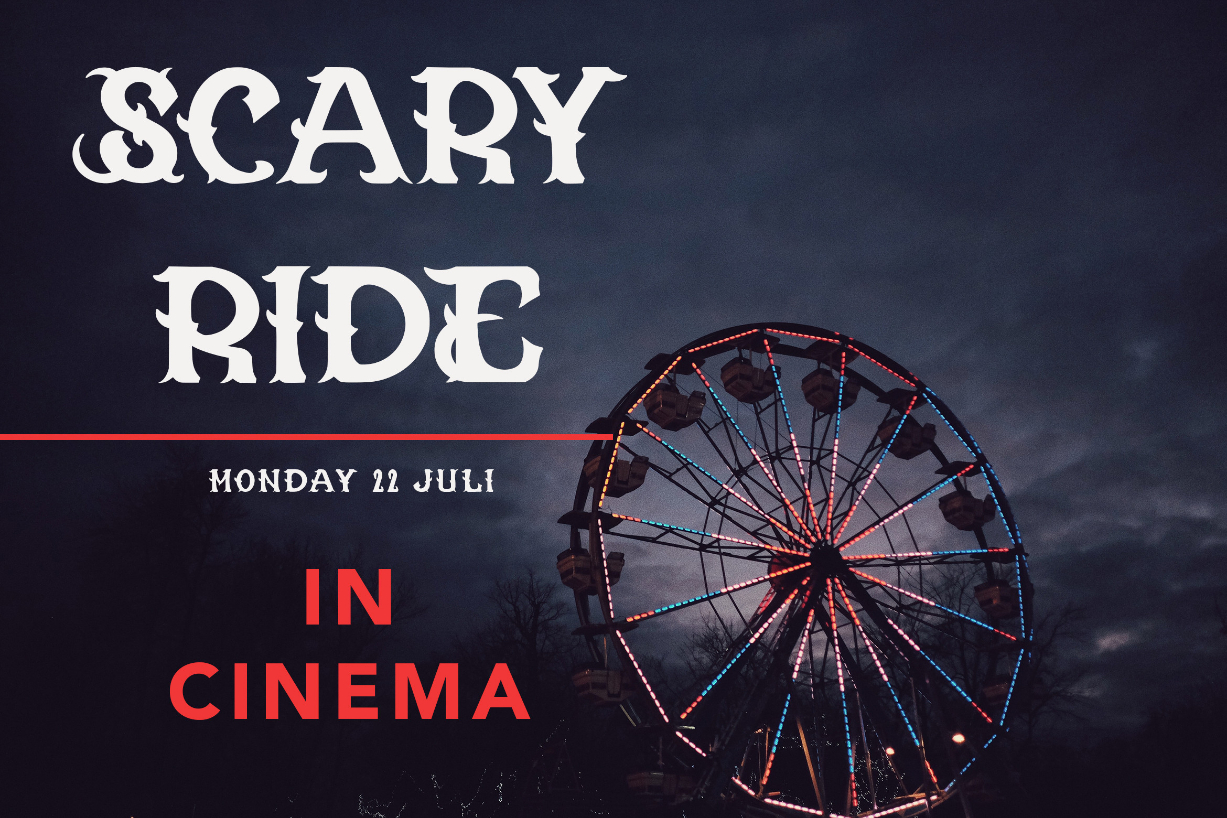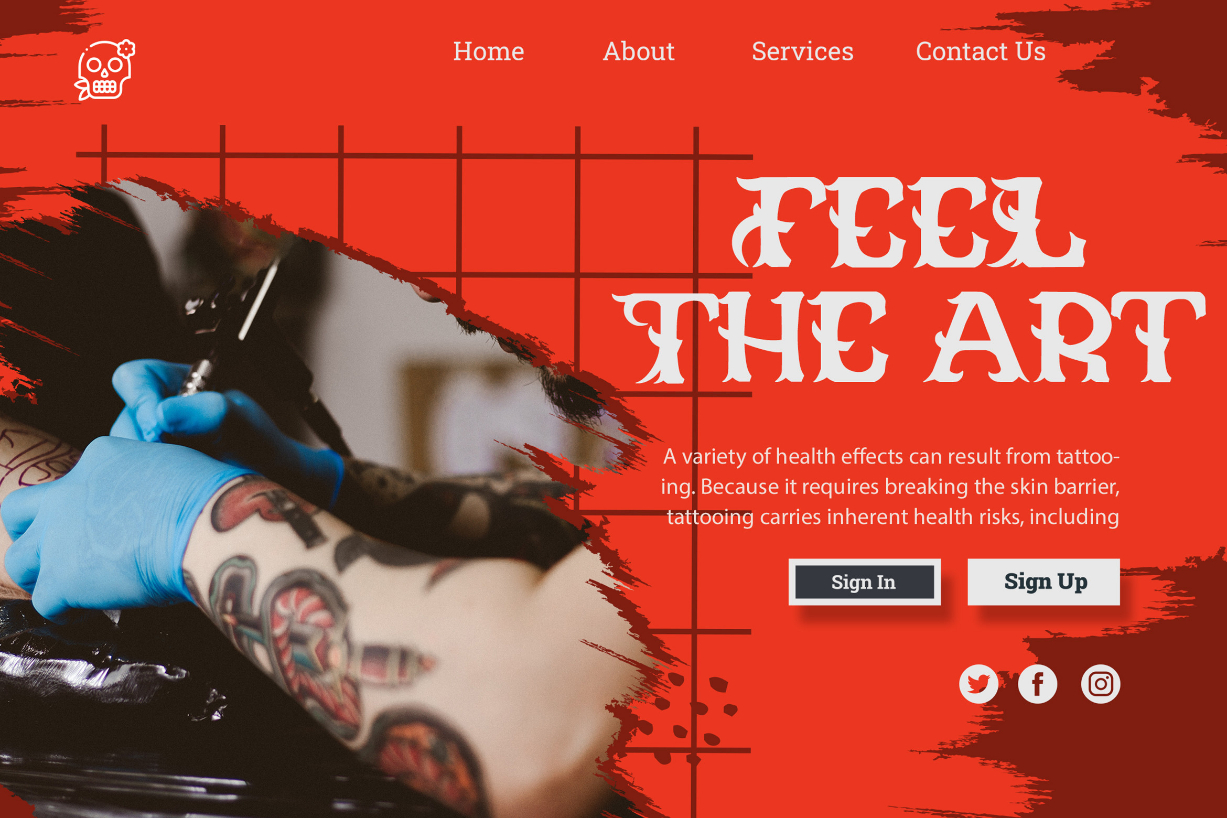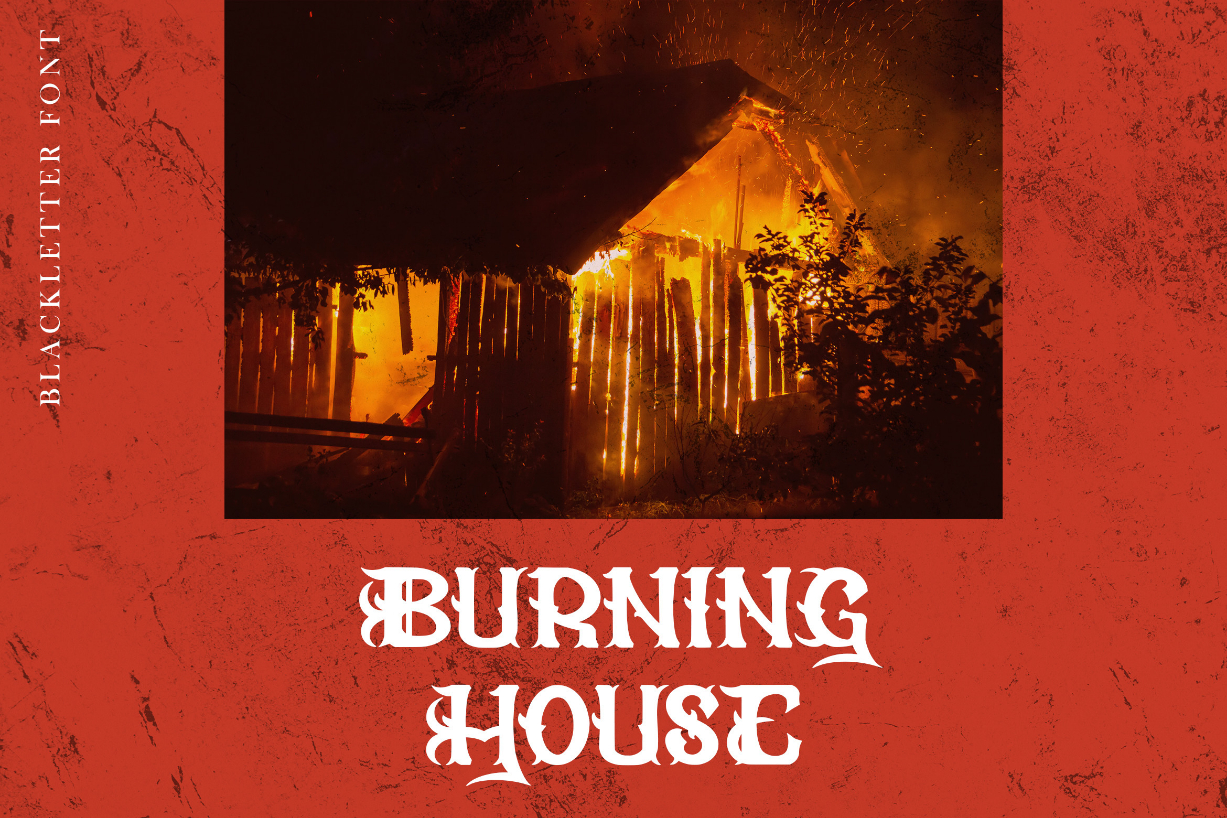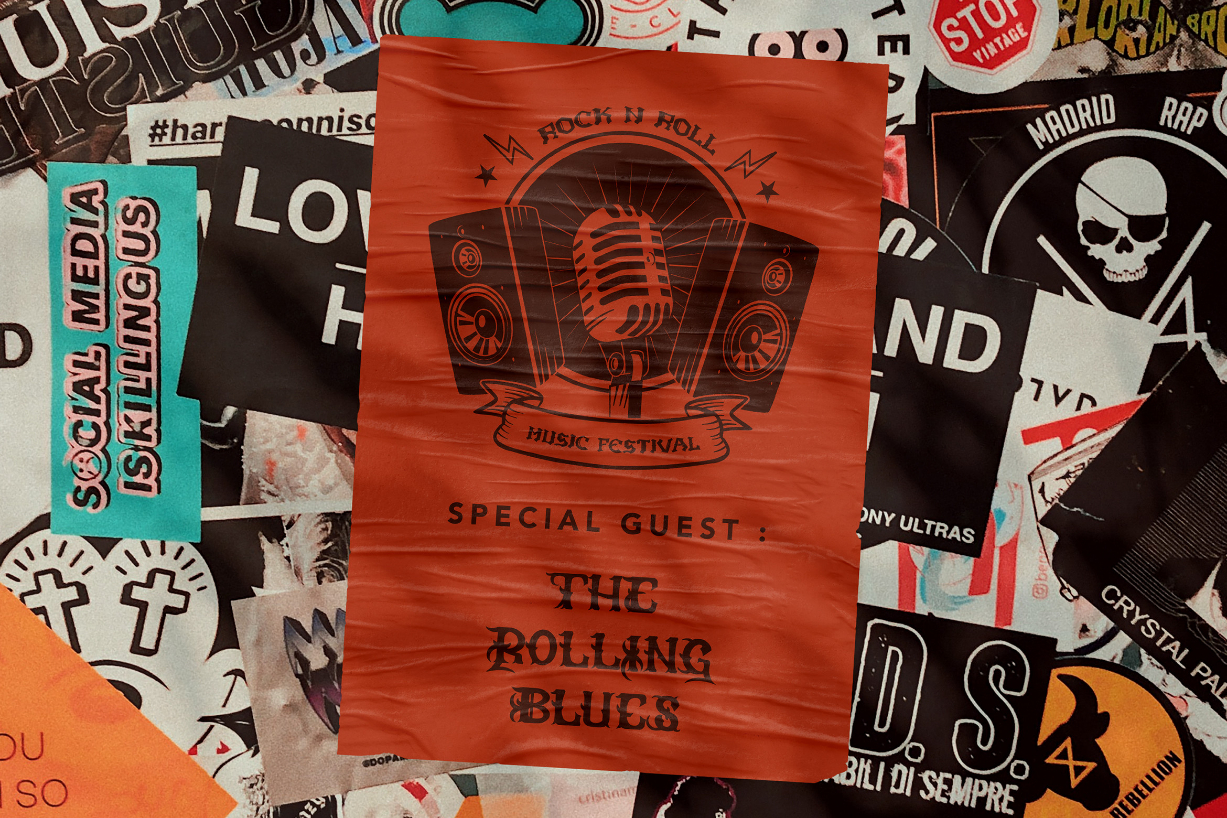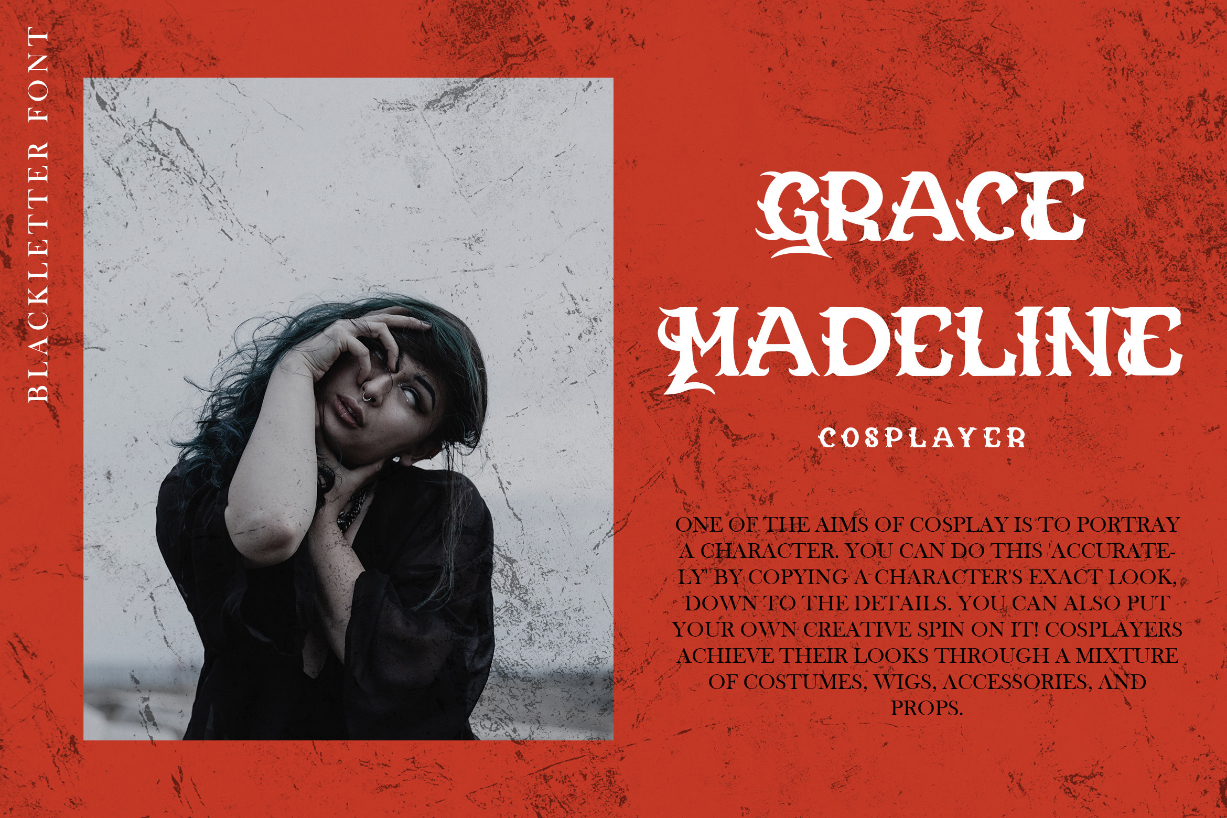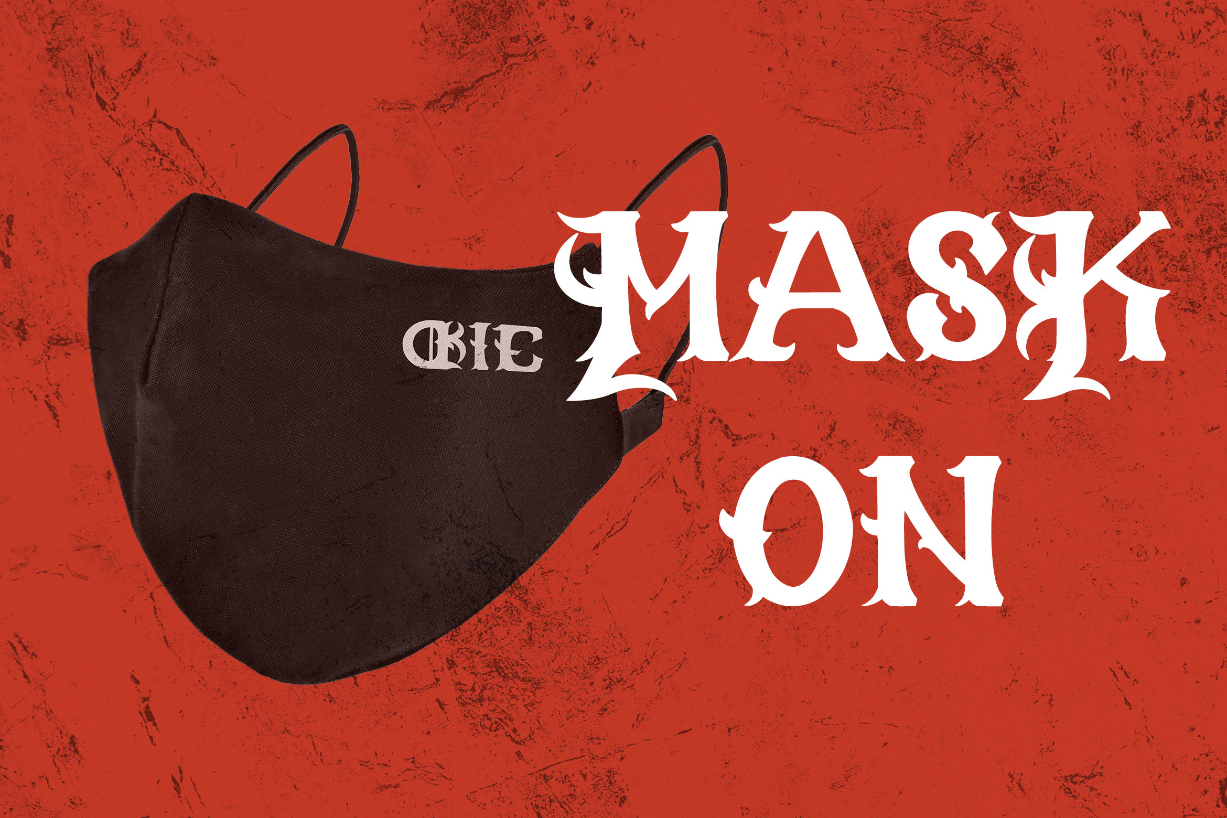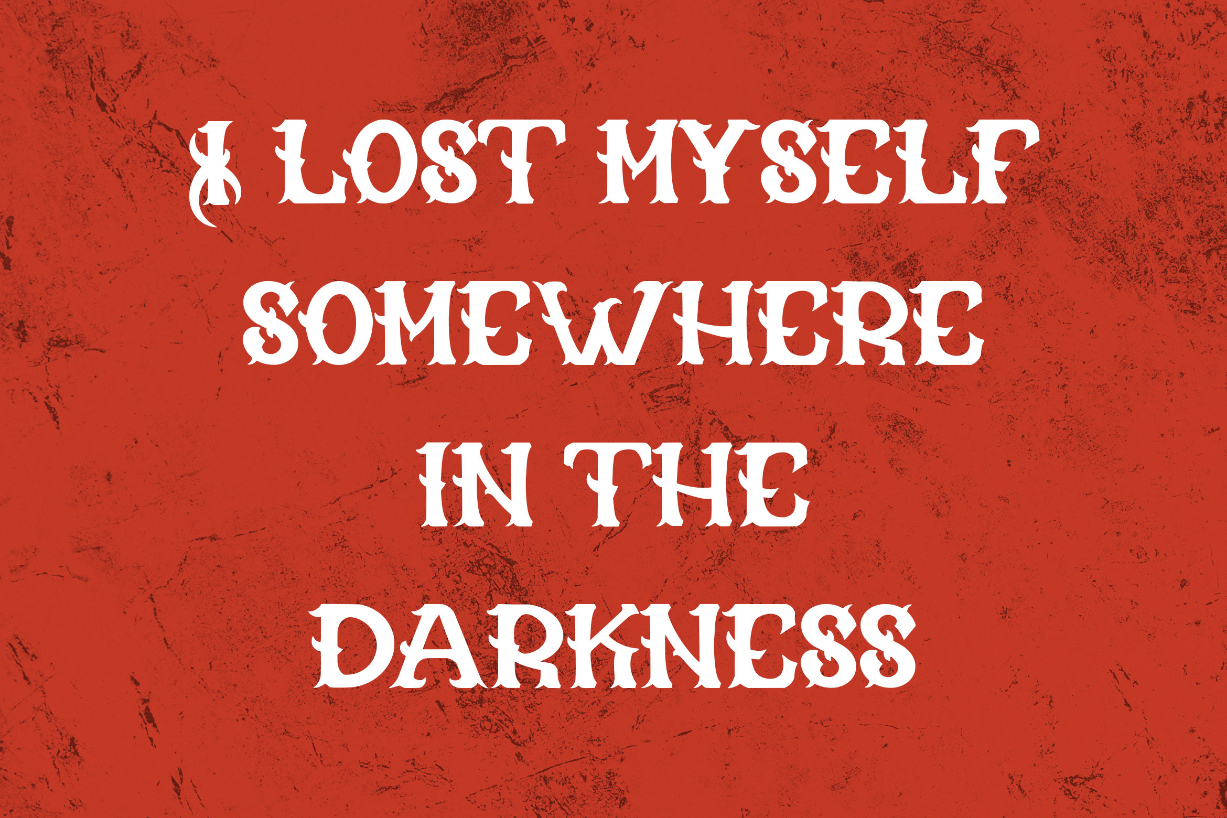
About Biohazard Font
Biohazard is a distinct and bold blackletter font. This font is neatly crafted and highly detailed. Biohazard is PUA encoded which means you can access all of the beautiful glyphs and swashes with ease!